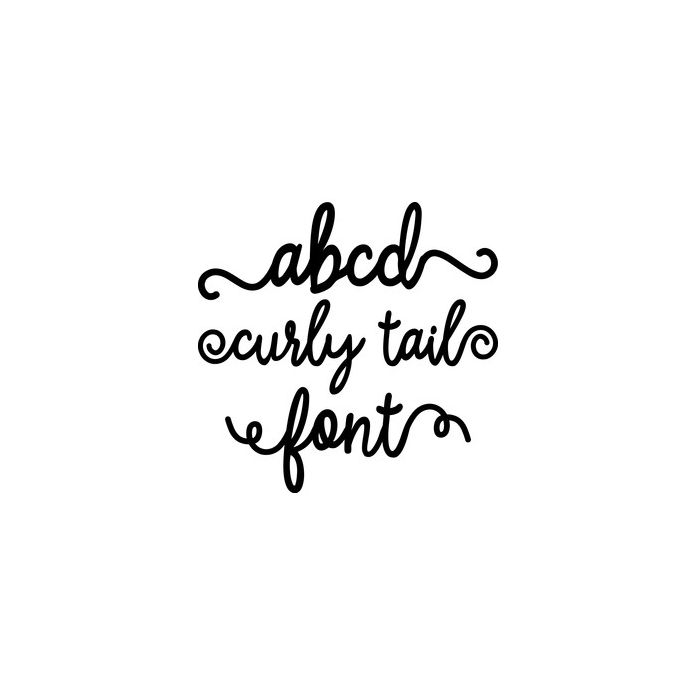
This script font is truly beautiful! It welds well making it perfect for vinyl and heat transfer projects. Includes international characters. Includes lowercase cursive letters along with the beginning and ending flourishes. To access the flourishes use these 6 keys: { } [ ] < >